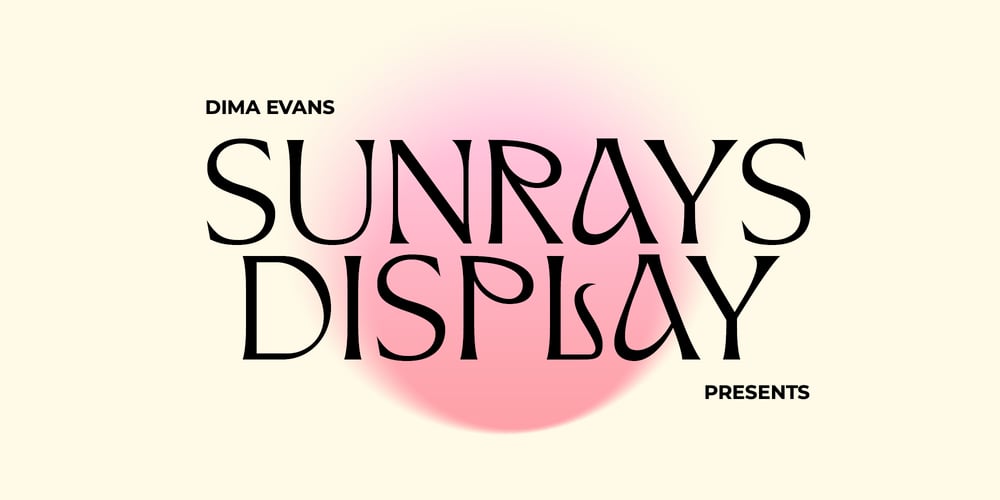
Sunrays Font Family was designed by Dmitrii Chirkov and published by Supfonts. Sunrays contains 1 styles and family package options. Sunrays Display is a modern and elegant display with incredible unusual lines that makes it far from the typical classic serif.Font is an open type with clean shapes and precise kerning. It includes ligatures encoded by the PUA.Language support: All European languagesDon’t forget to subscribe so you don’t miss out on the new awesome fontsDima